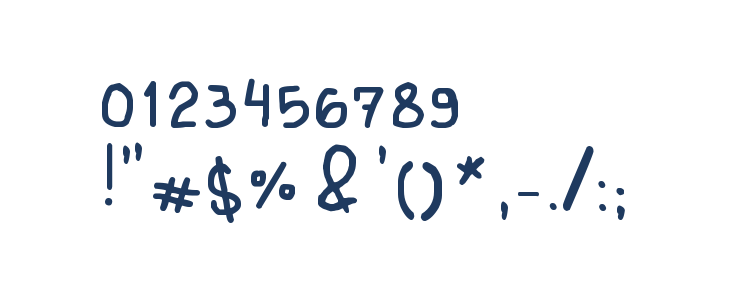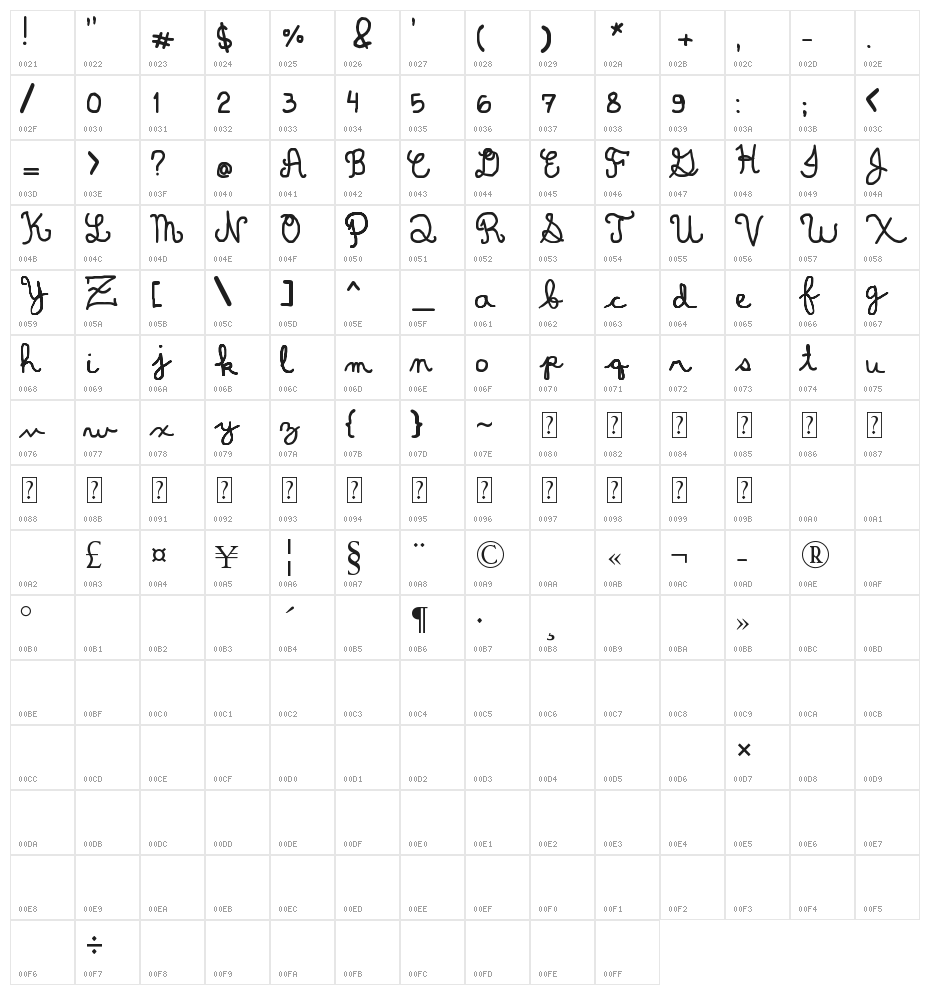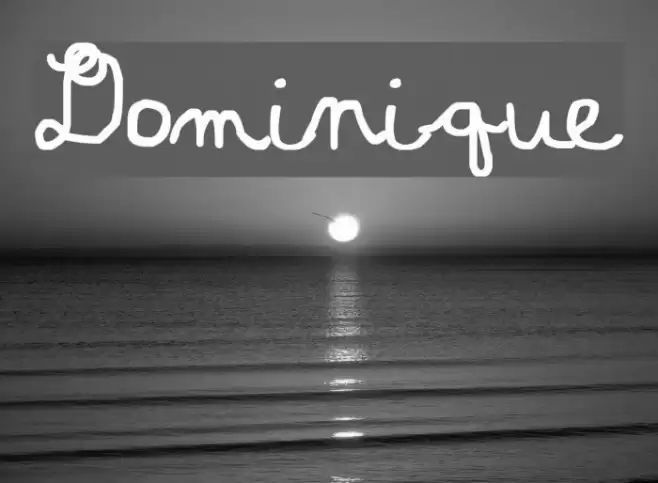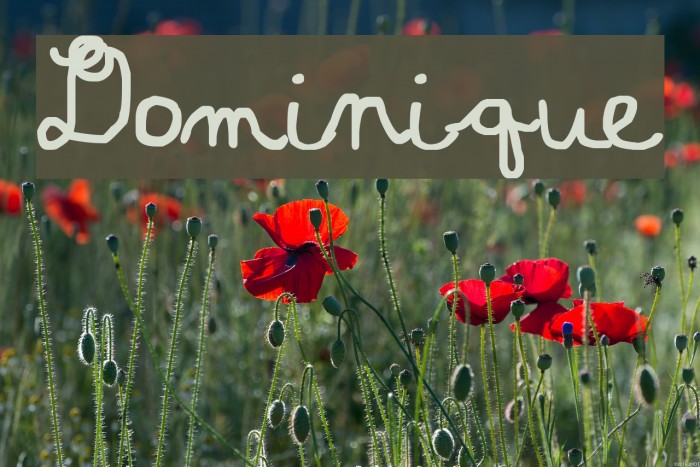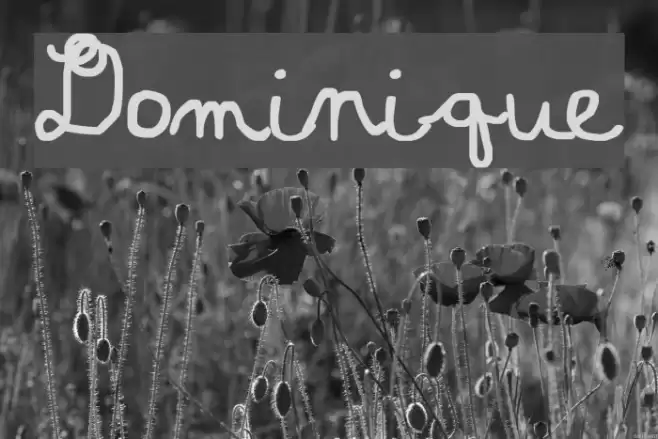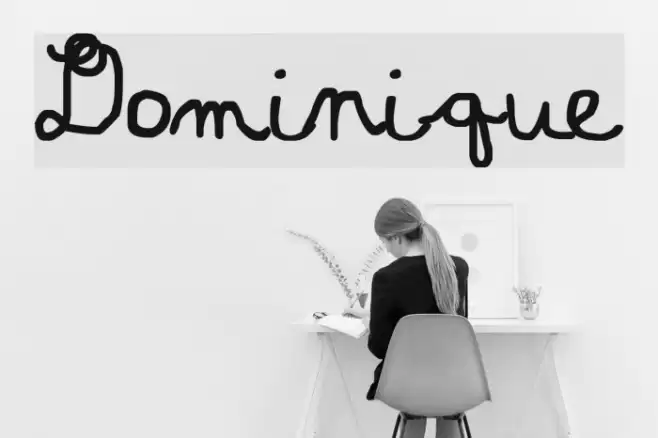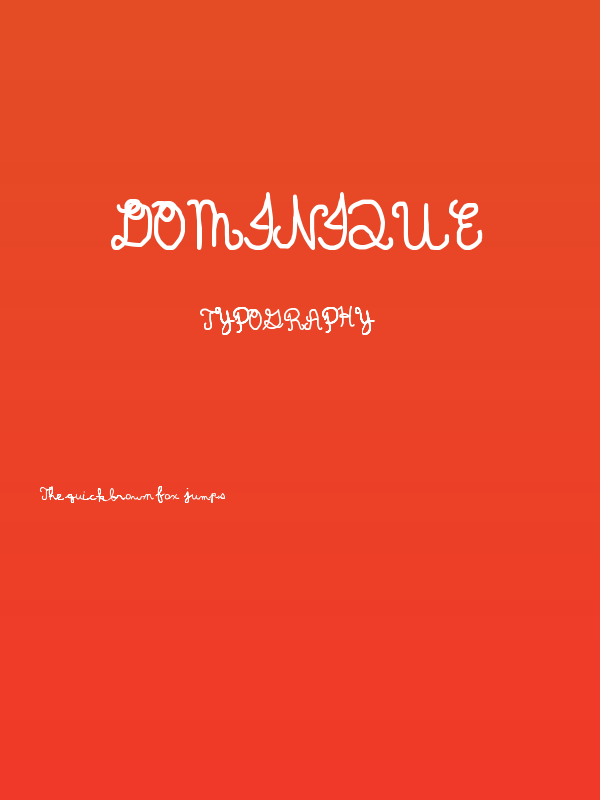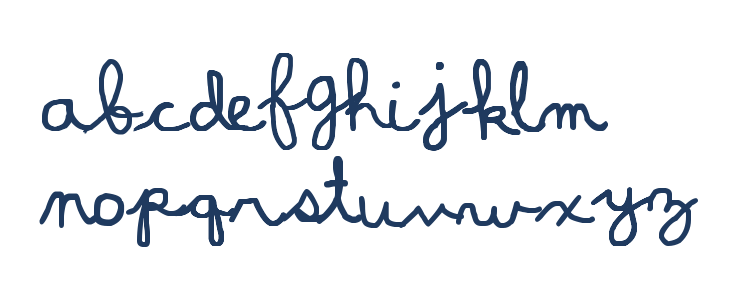
Dominique Font
Dominique Description
This font features a playful and whimsical handwritten style, characterized by its fluid and continuous strokes. The uppercase letters exhibit a unique blend of curves and loops, giving them a lively appearance. The lowercase letters maintain a consistent flow, enhancing the font's casual and friendly vibe. Numbers are bold and rounded, complementing the overall aesthetic. Special characters are creatively designed, adding to the font's charm. This font is perfect for projects that require a personal touch, such as invitations, greeting cards, or playful branding.
| Overall Style | Whimsical |
| Proposed Projects | Ideal for invitations, greeting cards, playful branding, and personal projects. |